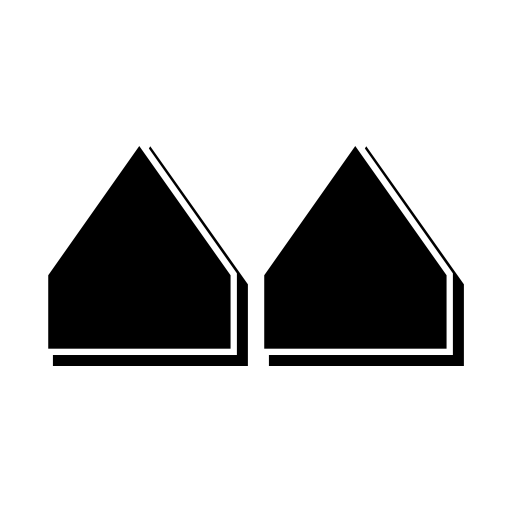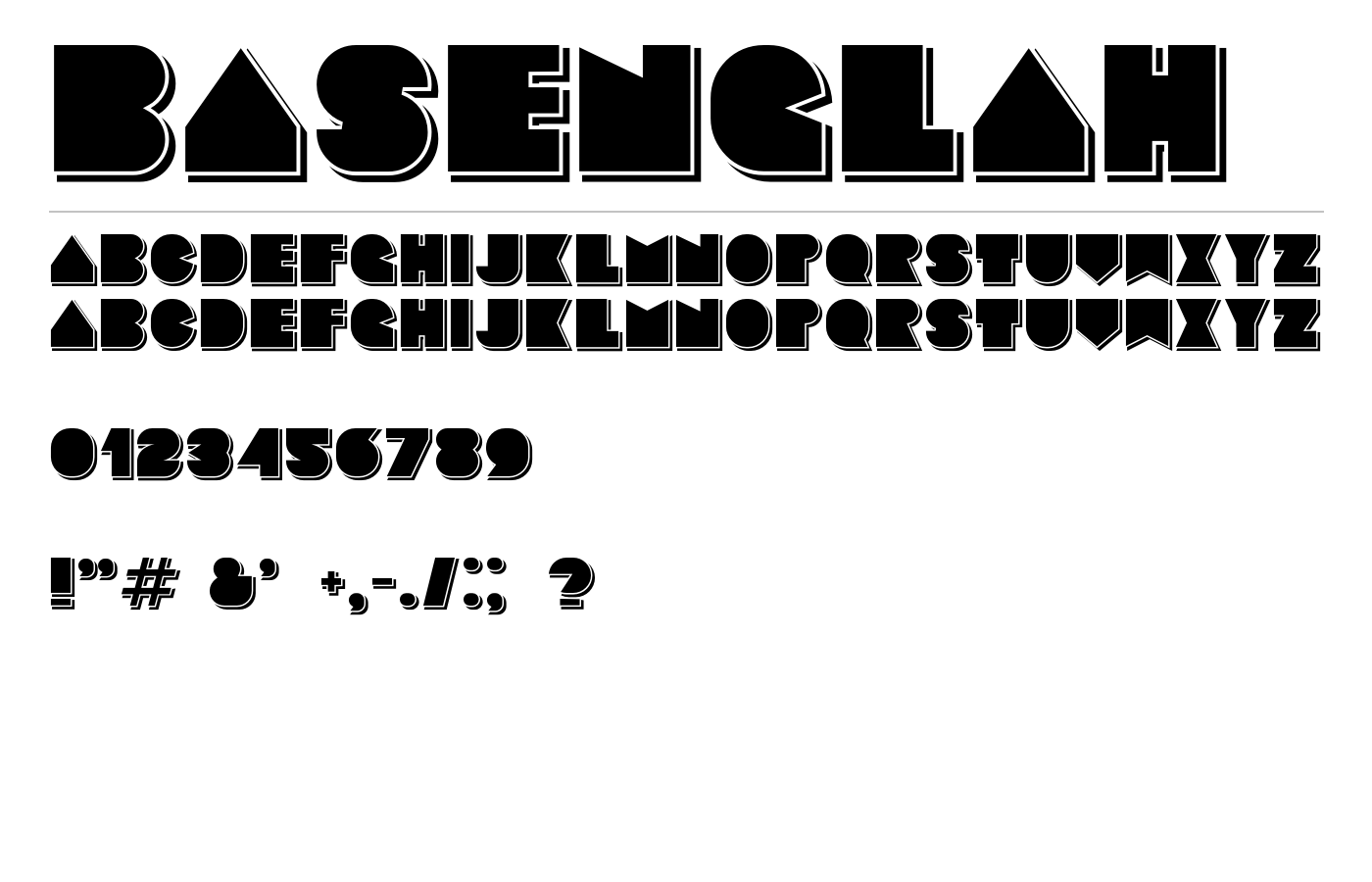
Basenglah is a bold, geometric display font with a strong visual impact, characterized by its solid black shapes and layered shadow effect that gives it a three-dimensional, retro vibe. Its uppercase letters feature sharp angles and unique forms that make it perfect for eye-catching headlines, posters, and logo designs where a playful yet assertive style is desired. This font works best in creative branding and editorial contexts that call for a dramatic and artistic touch.
Basenglah Font
About Basenglah Font
| Font family | Basenglah Font |
| Designer | Ramz |